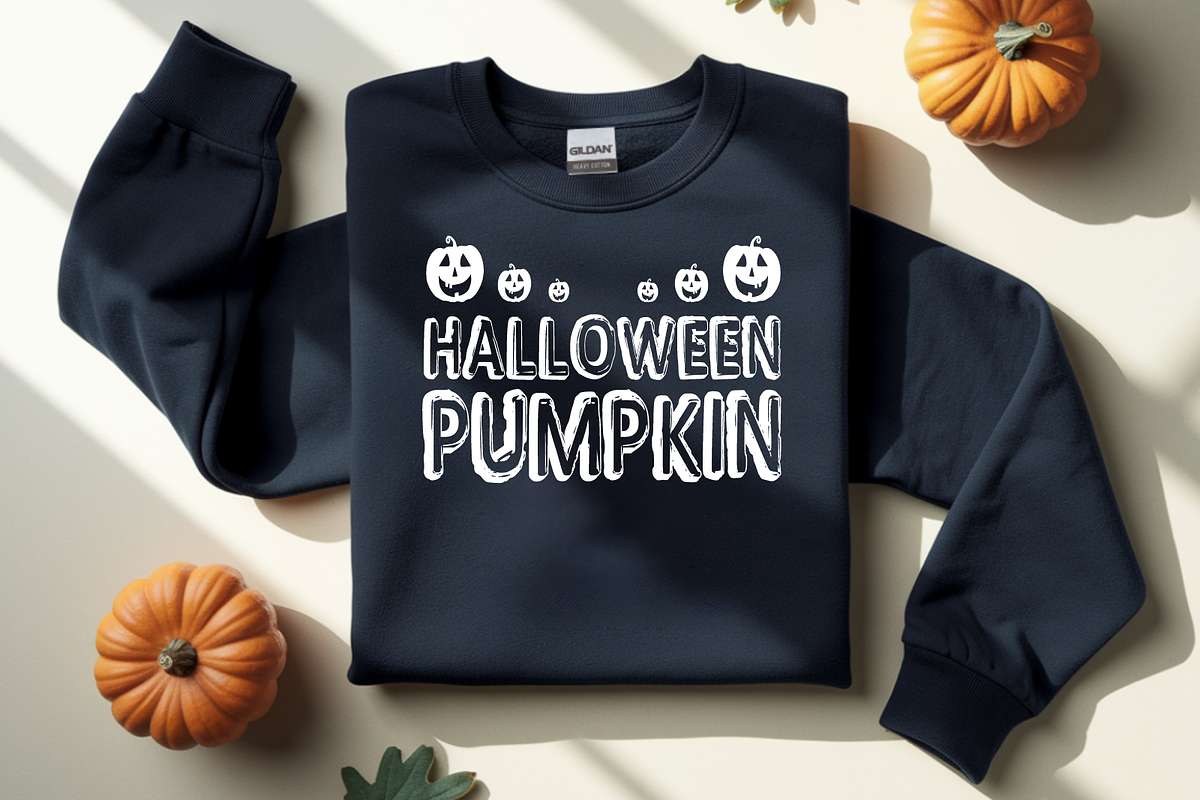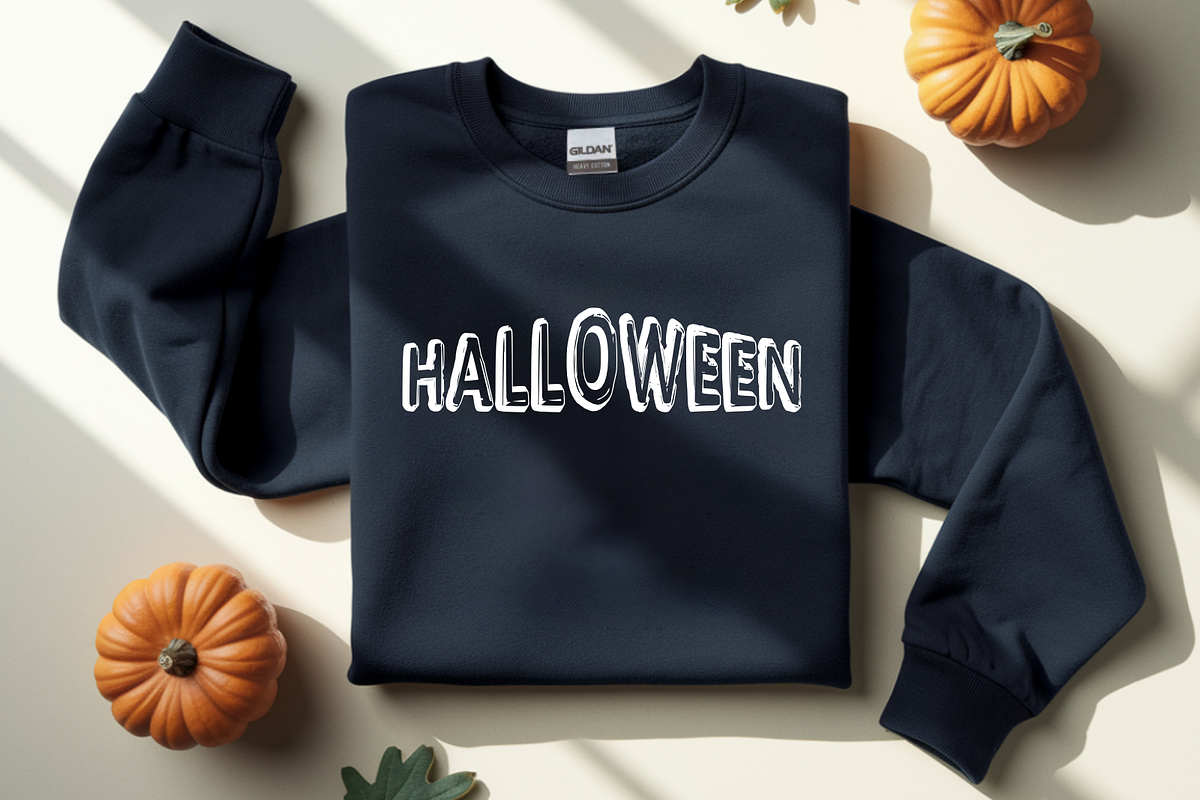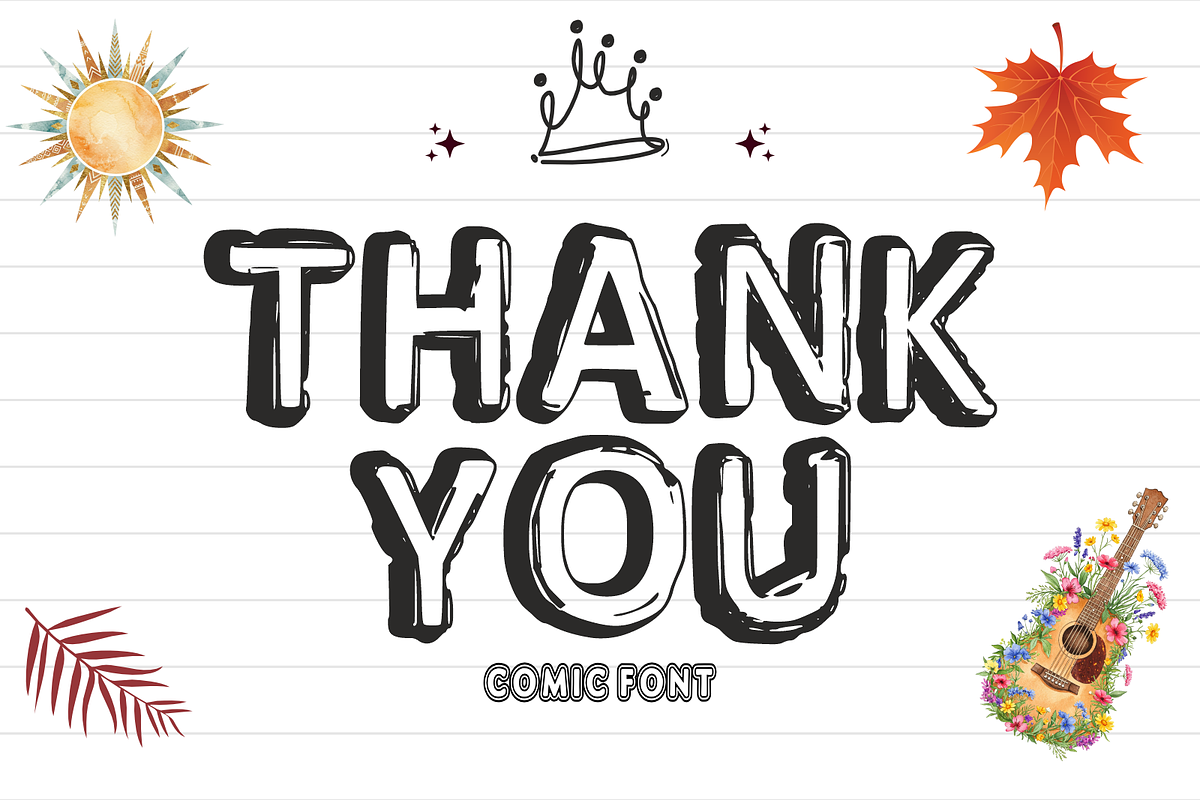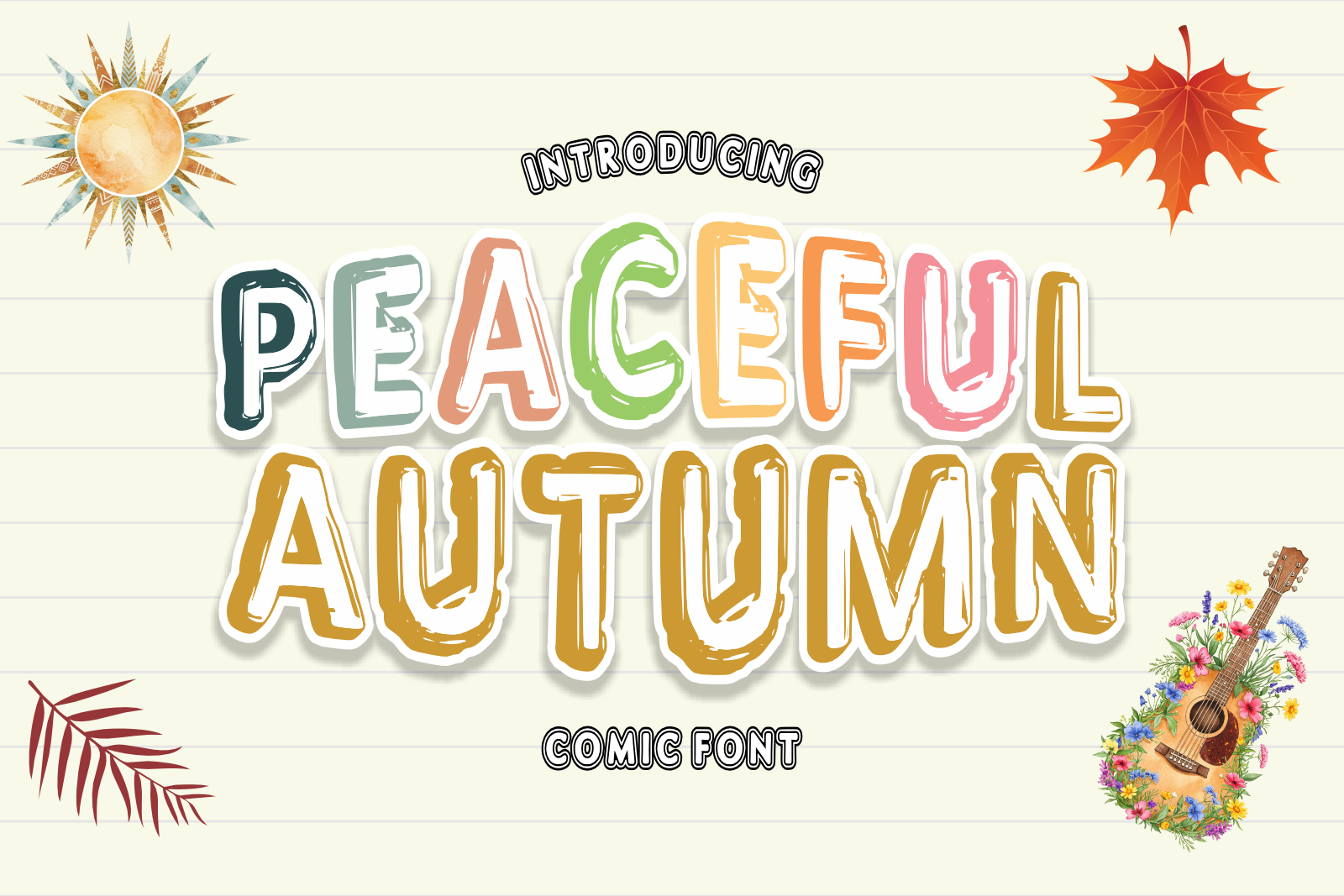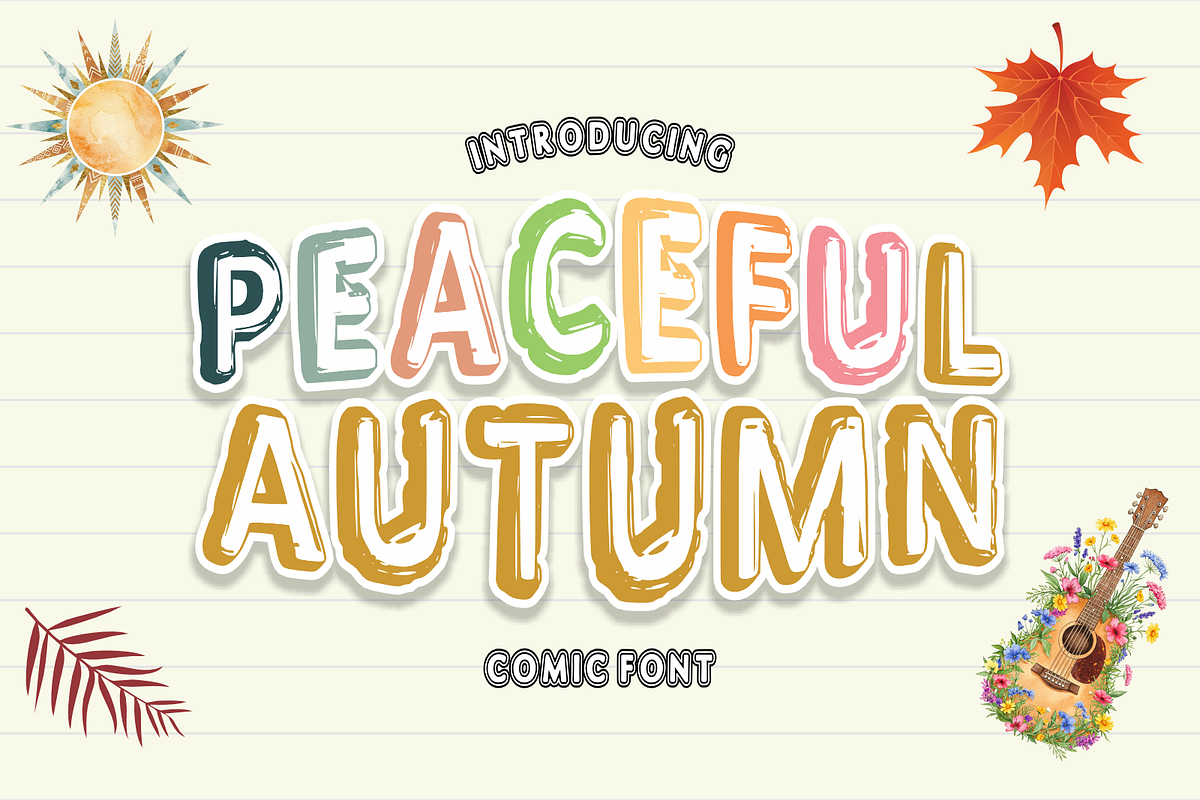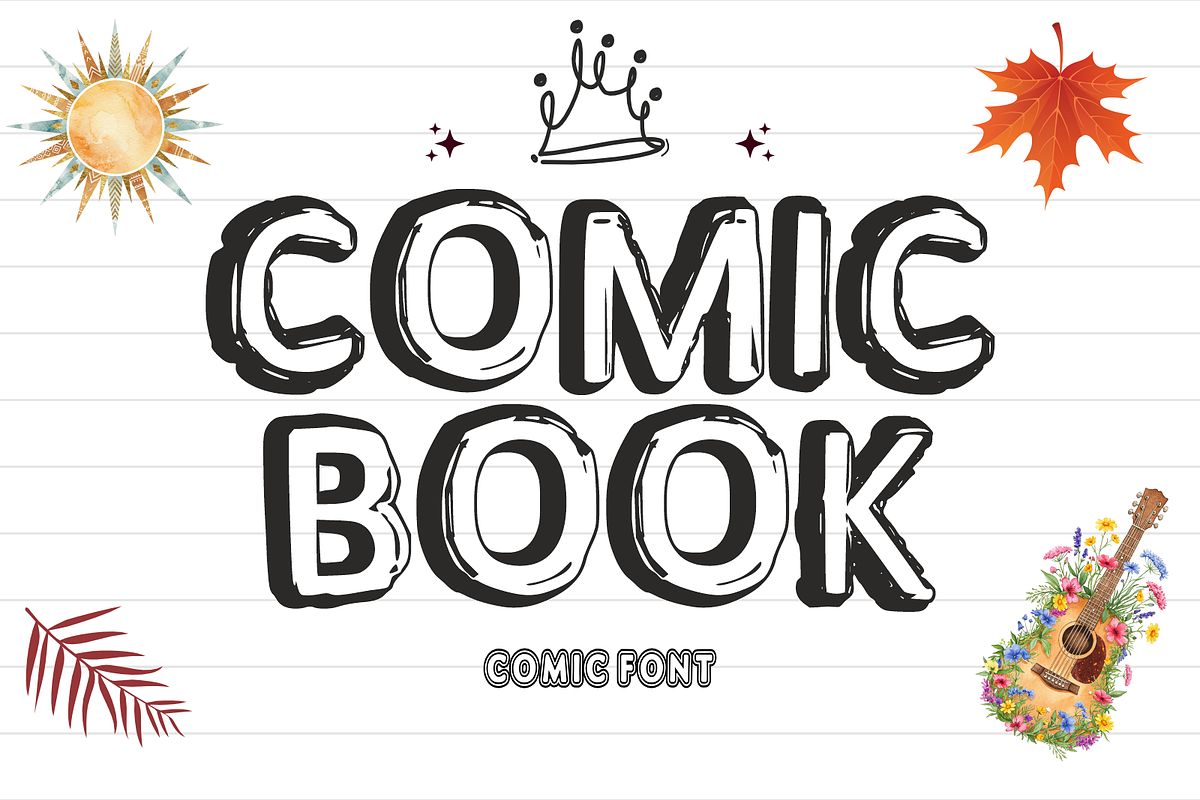
Peaceful Autumn - Display Comic Font
๐ Peaceful Autumn is a warm and charming display font inspired by cozy autumn days, falling leaves, and peaceful seasonal vibes ๐โ๏ธ With its hand-drawn comic style and soft rounded shapes, this font feels friendly, playful, and full of character.
Perfect for autumn designs, seasonal branding, posters, greeting cards, social media, kids projects, and creative headlines, Peaceful Autumn adds a natural and joyful touch to any design.
๐จ Perfect for: โข Autumn & Fall Designs โข Posters & Headlines โข Greeting Cards โข Kids & Creative Projects โข Branding & Digital Products
Bring cozy feelings and happy autumn vibes to your designs with Peaceful Autumn ๐โจ